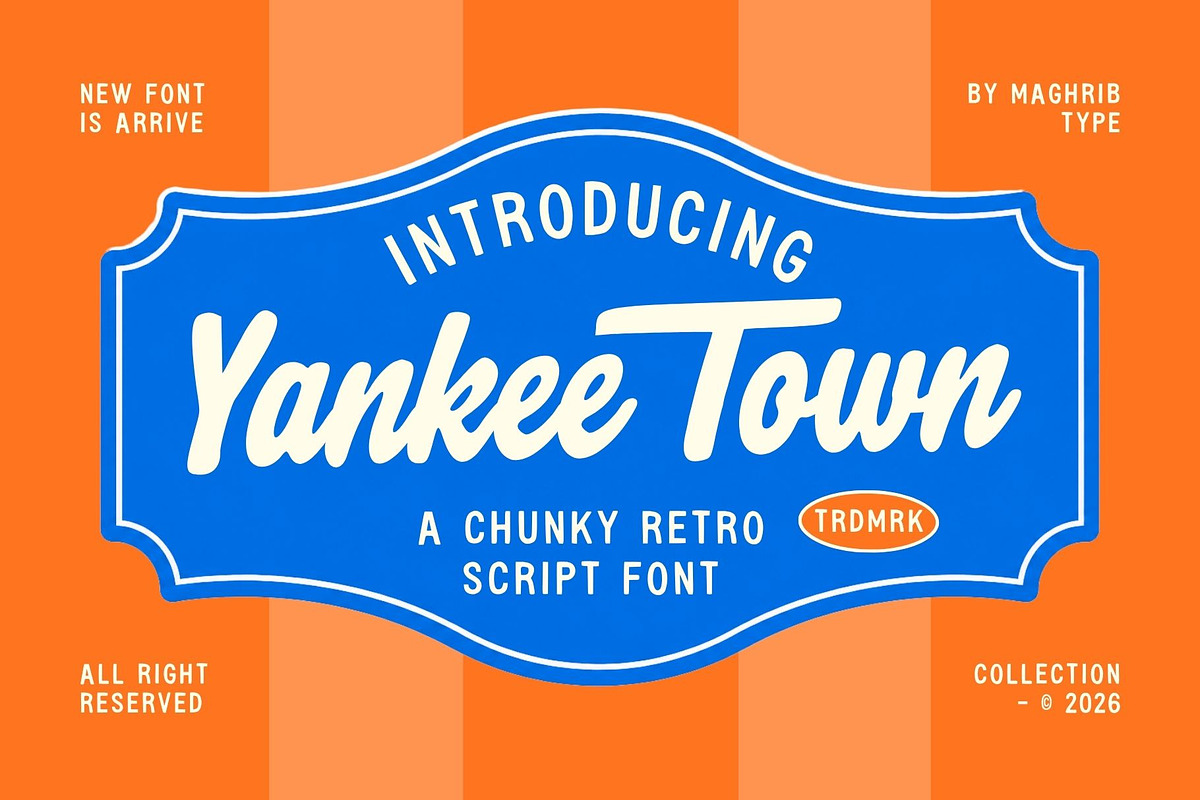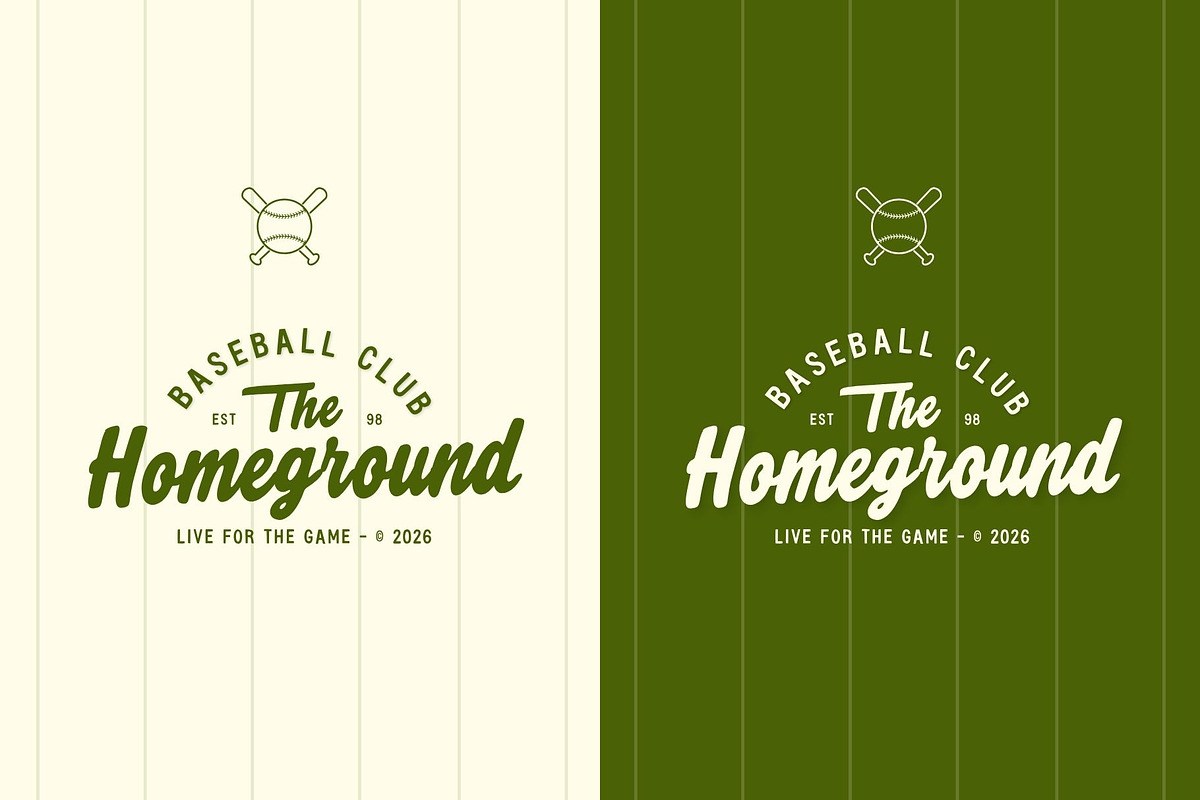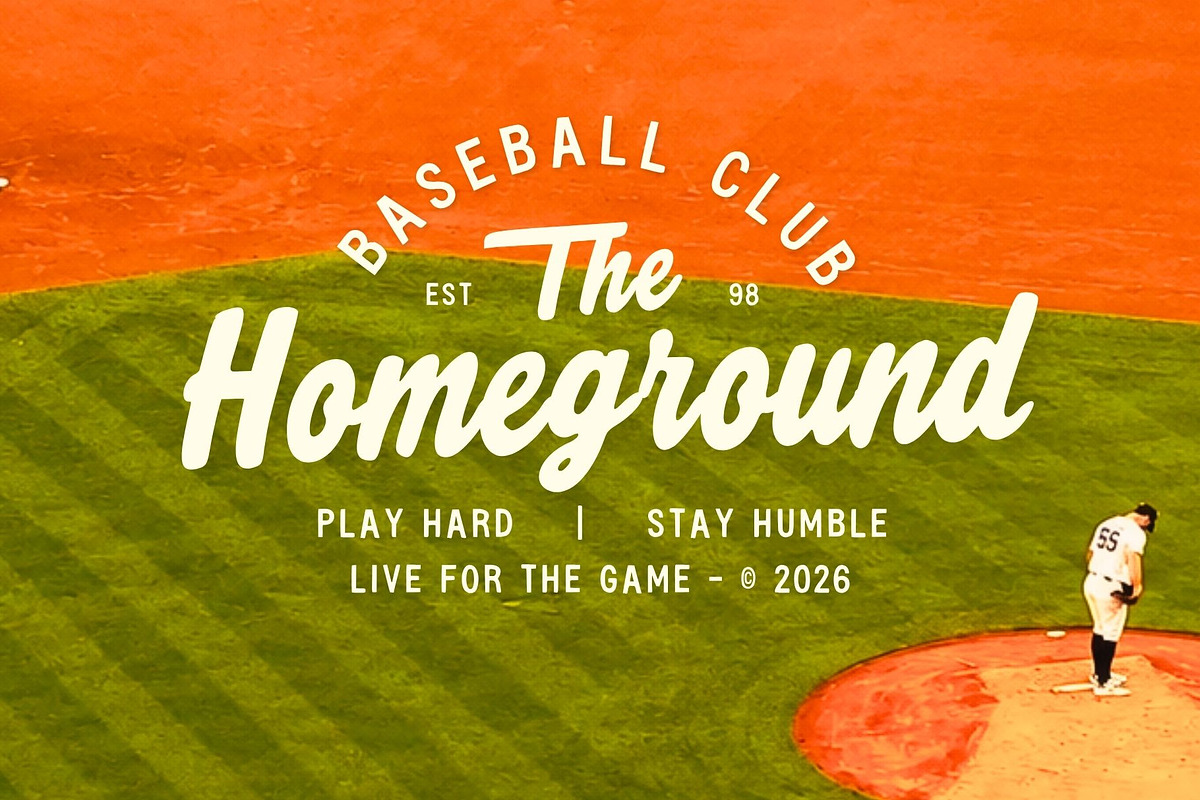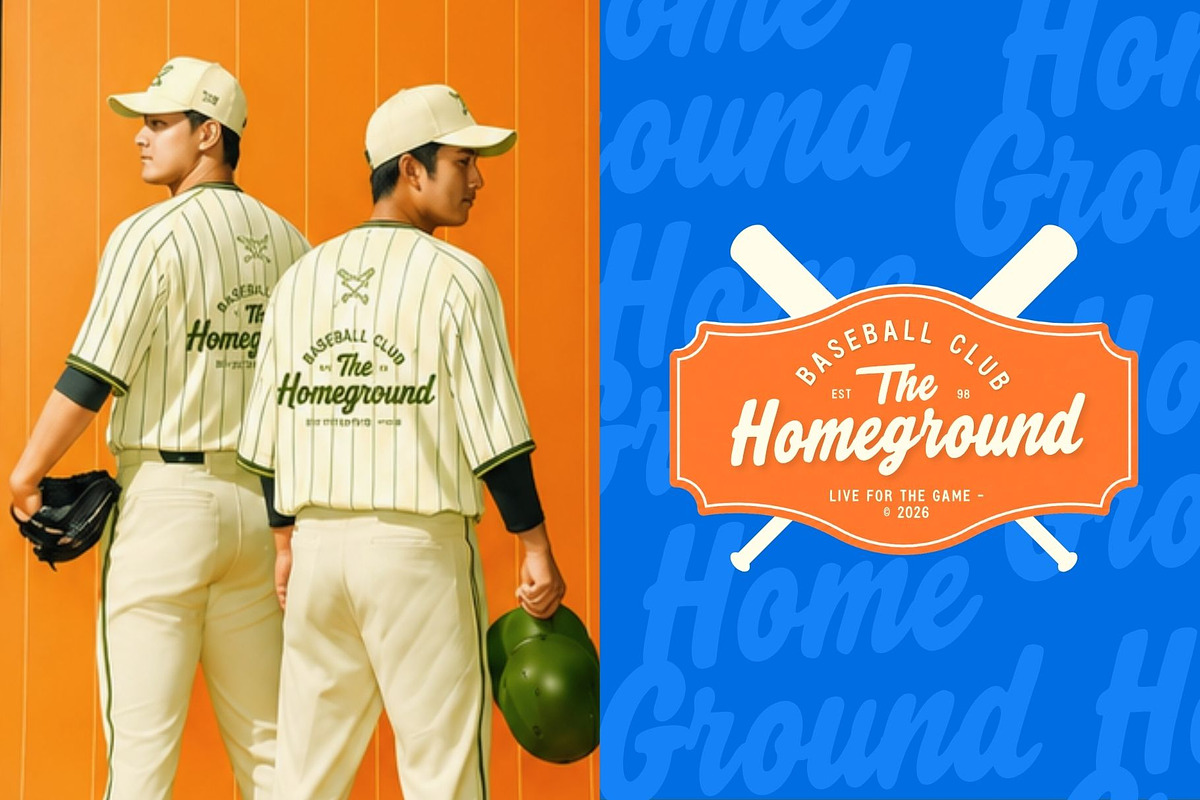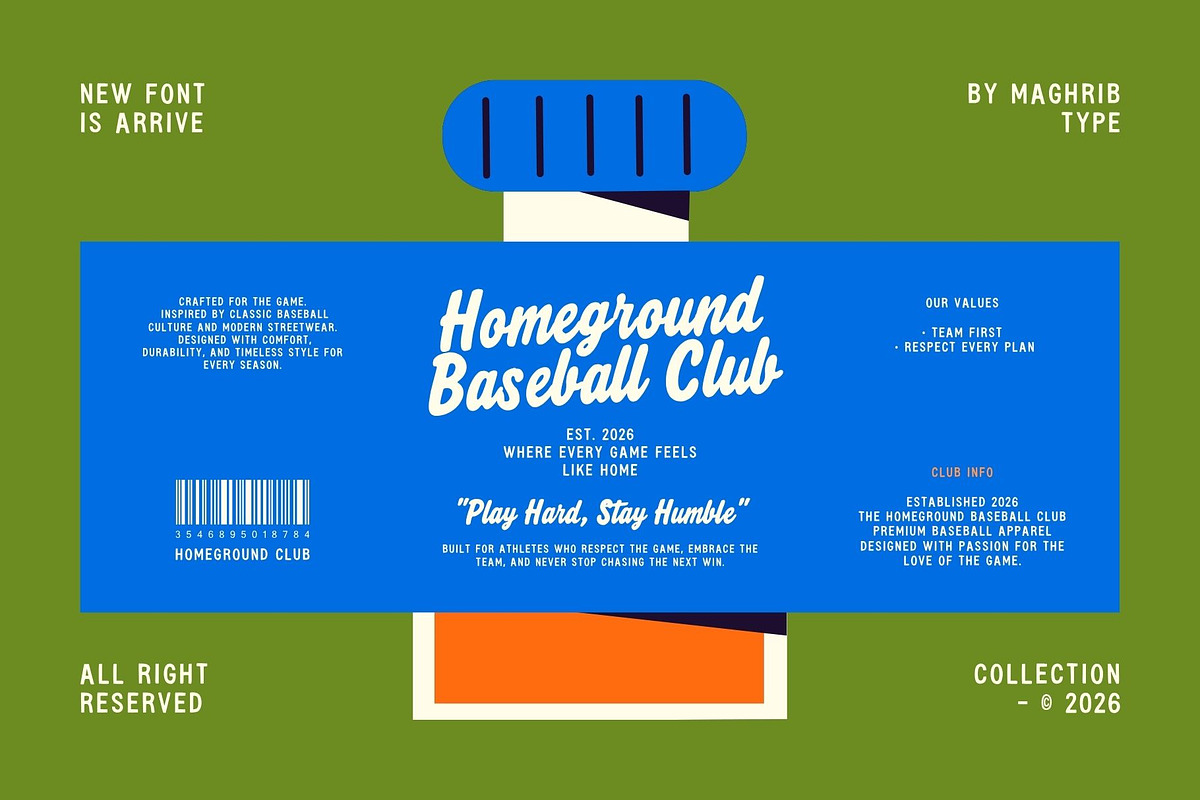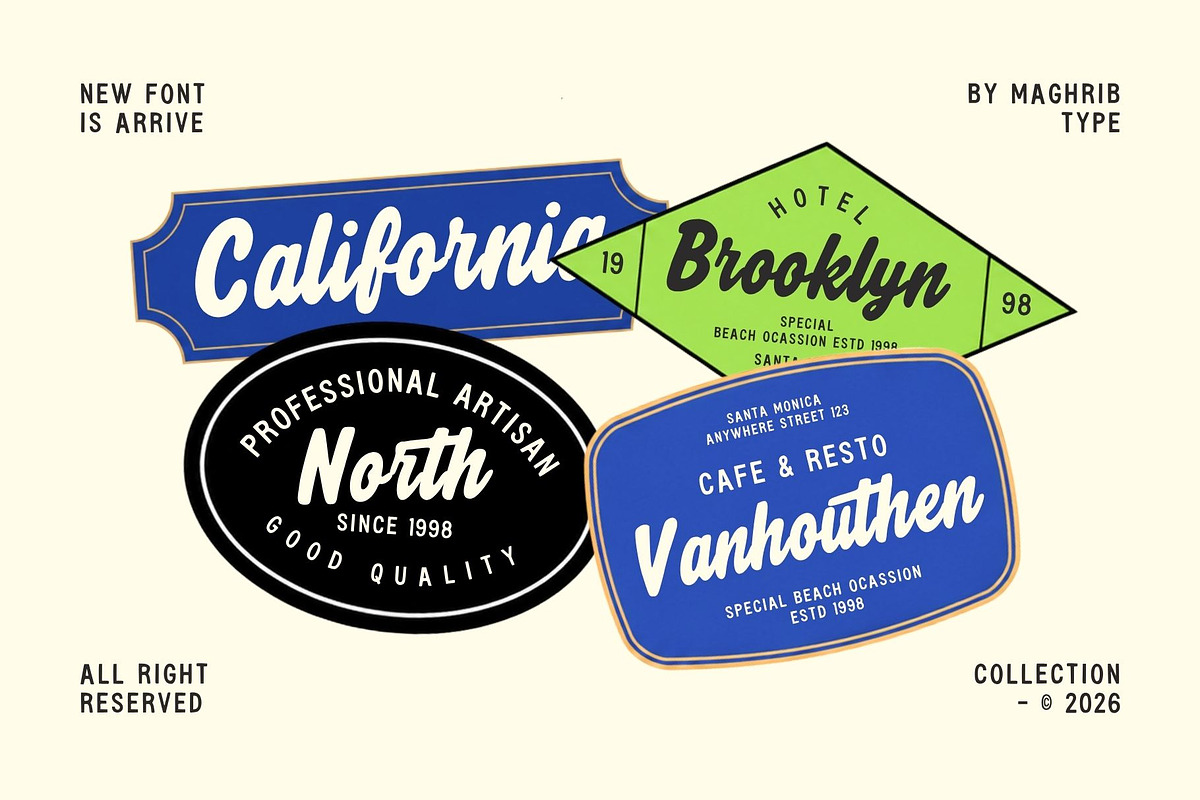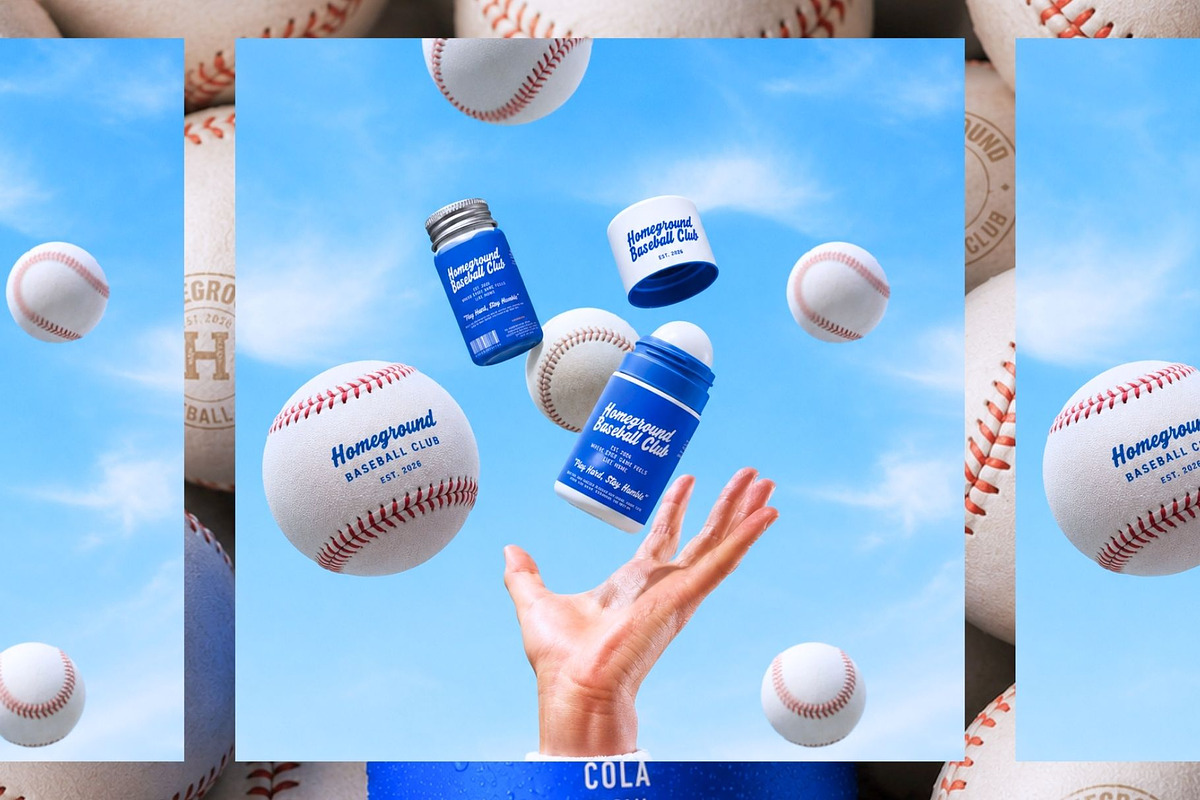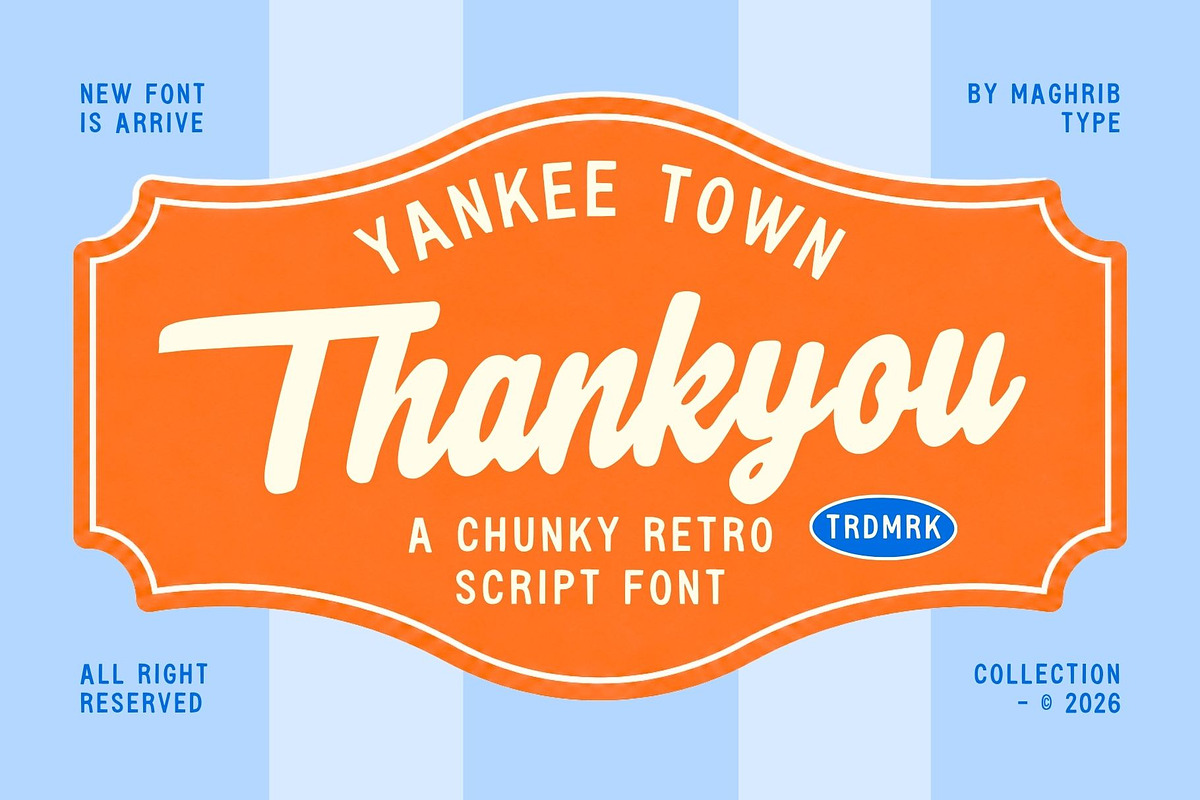
Yankee Town
Bring a bold vintage spirit to your designs with Yankee Town, a chunky retro script font inspired by classic American signage, vintage sports graphics, and nostalgic baseball culture.
With its bold, rounded letterforms and playful hand-lettered character, Yankee Town is designed to instantly create a strong retro personality while keeping your typography fun, energetic, and easy to read.
Perfect for designs that need a confident old-school American feel — from baseball-inspired artwork and sports branding to vintage logos, apparel, posters, badges, packaging, and social media graphics.
Vintage logos & branding
Baseball & sports designs
Retro apparel & merchandise
T-shirt graphics
Posters & flyers
Badges & emblems
Restaurant & café branding
Retro signage
Packaging design
Sticker designs
Headlines & display typography
Vintage advertising
Team & club graphics
Nostalgic Americana designs
Yankee Town works especially well when you want your typography to feel bold, nostalgic, playful, and unmistakably retro.
Give your next project a little more character with Yankee Town.